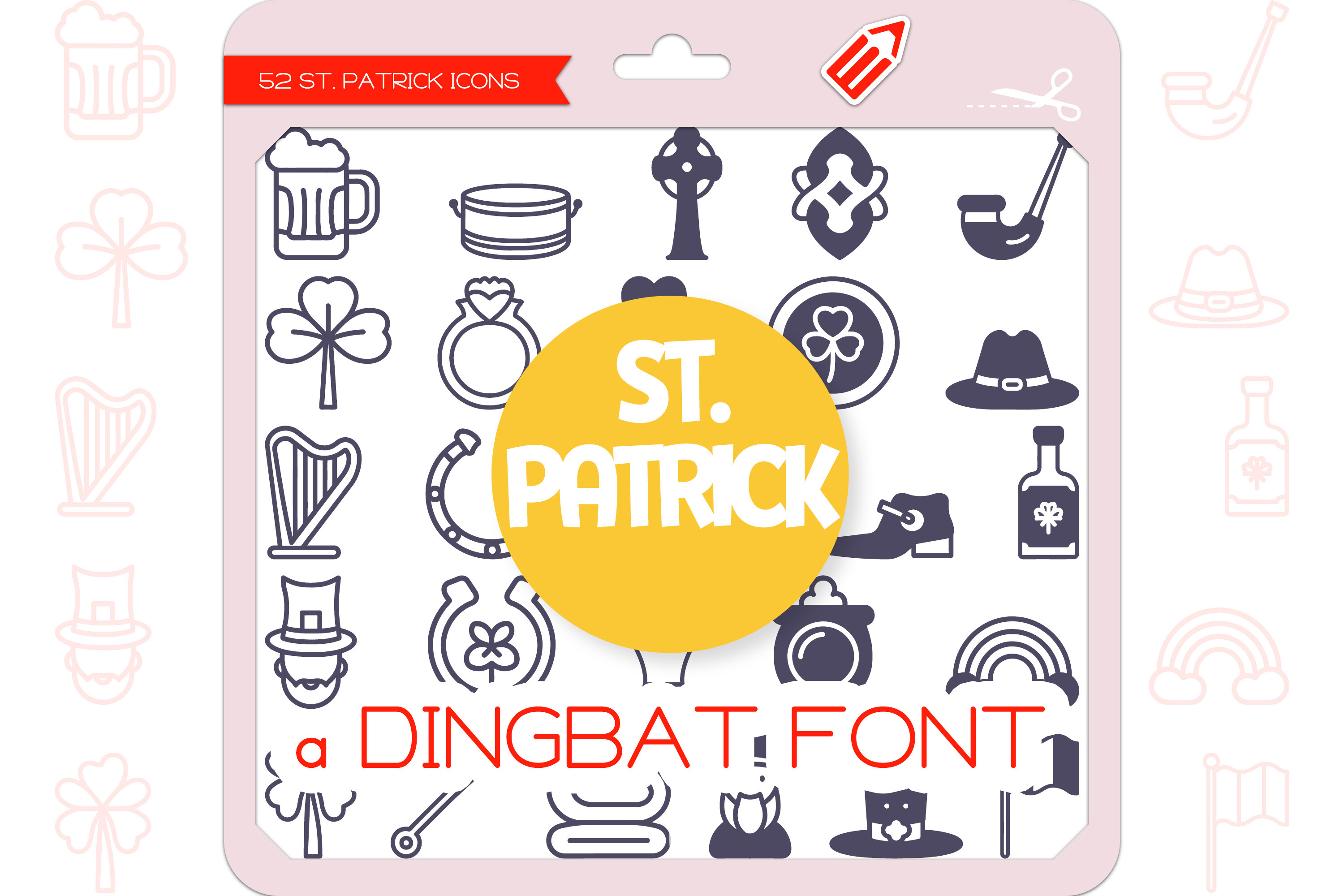
St. Patrick Icons - Dingbat Font
St. Patrick is a unique and cute dingbat font. It contains 52 icons in 2 styles (Outline & Filled-Outline). Add this font to your creative ideas and make your arts outstanding!
The St. Patrick Icons Dingbat Font featuring 26 things Beer Mug, Bodhran Drum, Celtic Cross, Celtic Knot, Celtic Pipe, Clover, Claddagh Ring, Four-Leaf Clover, Gold Coin, Green Hat, Harp, Horseshoe, Ireland Map, Irish Dance Shoes, Irish Whiskey, Leprechaun, Lucky Charm, Pint of Guinness, Pot of Gold, Rainbow, Shamrock, Shepherd's Crook, Snake, Top Hat, Tricolor Flag